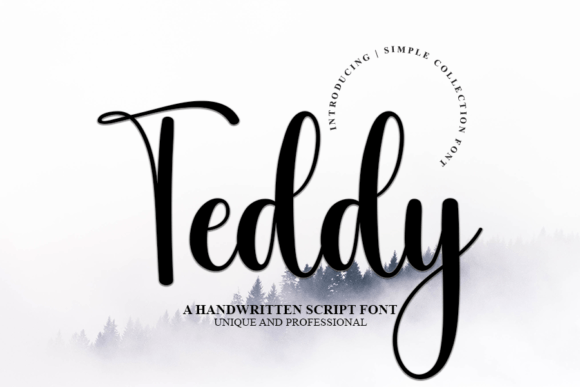
Behold the Teddy Font, a captivating handwritten font that will immerse your designs in a world of charm and creativity. Its playful strokes and enchanting curves evoke a sense of warmth and authenticity that will leave an unforgettable impression on your audience.
Unleash your artistic flair with Teddy, the perfect font for crafting enchanting invitations, heartfelt greeting cards, or eye-catching logos that exude personality. Whether you're designing for personal projects or commercial endeavors, Teddy's versatility will elevate your creations to new heights.
Dive into the depths of Teddy's unique charm and let your imagination run wild. Its bold strokes and dynamic baseline add a touch of whimsy and energy to your designs, making them stand out from the crowd. From elegant wedding invitations to playful children's books, Teddy effortlessly adapts to any project, capturing the essence of your message with grace and style.
Transport yourself to a world of endless creative possibilities with Teddy, the font that captivates hearts and ignites imaginations. Its easy-to-use format and extensive character set empower you to effortlessly create designs that resonate with your audience, leaving a lasting impression that they won't soon forget.
Embark on an artistic journey with Teddy, the font that will transform your designs into captivating masterpieces. Its timeless appeal and enduring beauty will ensure that your creations remain relevant and cherished for years to come. Embrace the power of Teddy and let your creativity soar to new horizons.